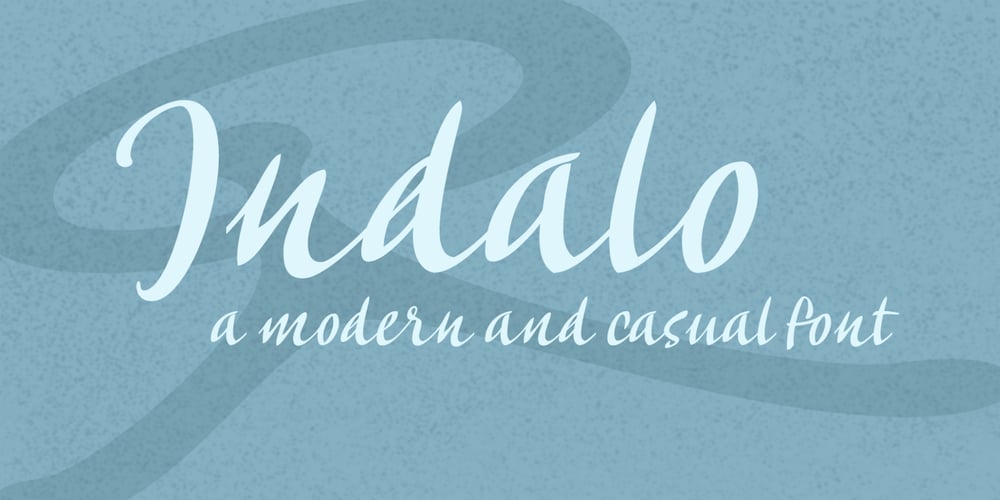
Indalo Font Family was designed by Carine de Wandeleer and published by Eurotypo. Indalo contains 1 styles and family package options. The “indalo” means messenger of the Gods in the Iberian language about 2500 BC. It was discovered in the Almeria, south of Spain, Indalo was a ghost that bring luck having a rainbow in his hands.Indalo font is an informal, condensed hand-drawn font with a vintage touch. Its features give it a nice appearance that refer to traditional fluent writing.This font is equipped with a large set of ligatures, as well as different alternatives on some letters, to create more authentic and varied connections between letters. Contain Central European language support to fit your design.